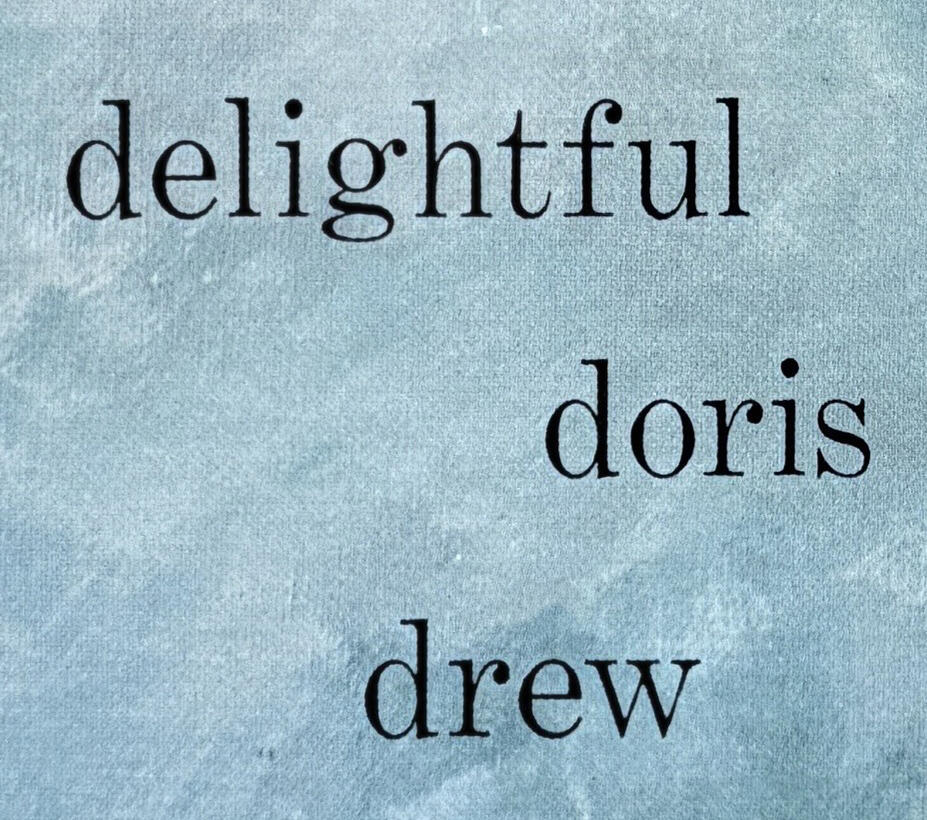
Font identification (Doris Drew – Delightful Doris Drew), similar to scotch
I am hoping someone can help me ID this font, similar to Modern / Scotch, although there is less contrast, more even weight and the g fairly different. It's from a 1957 album cover.